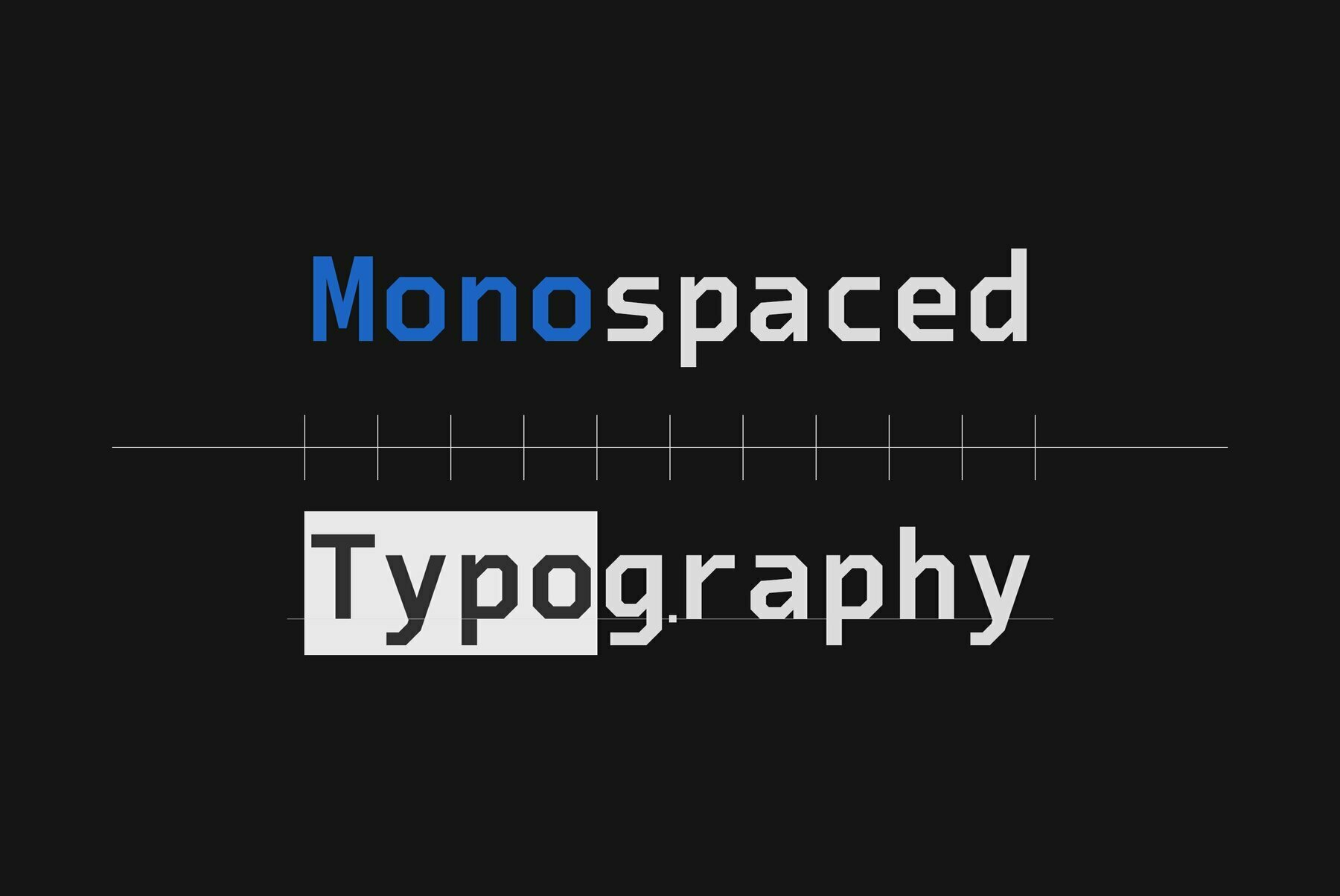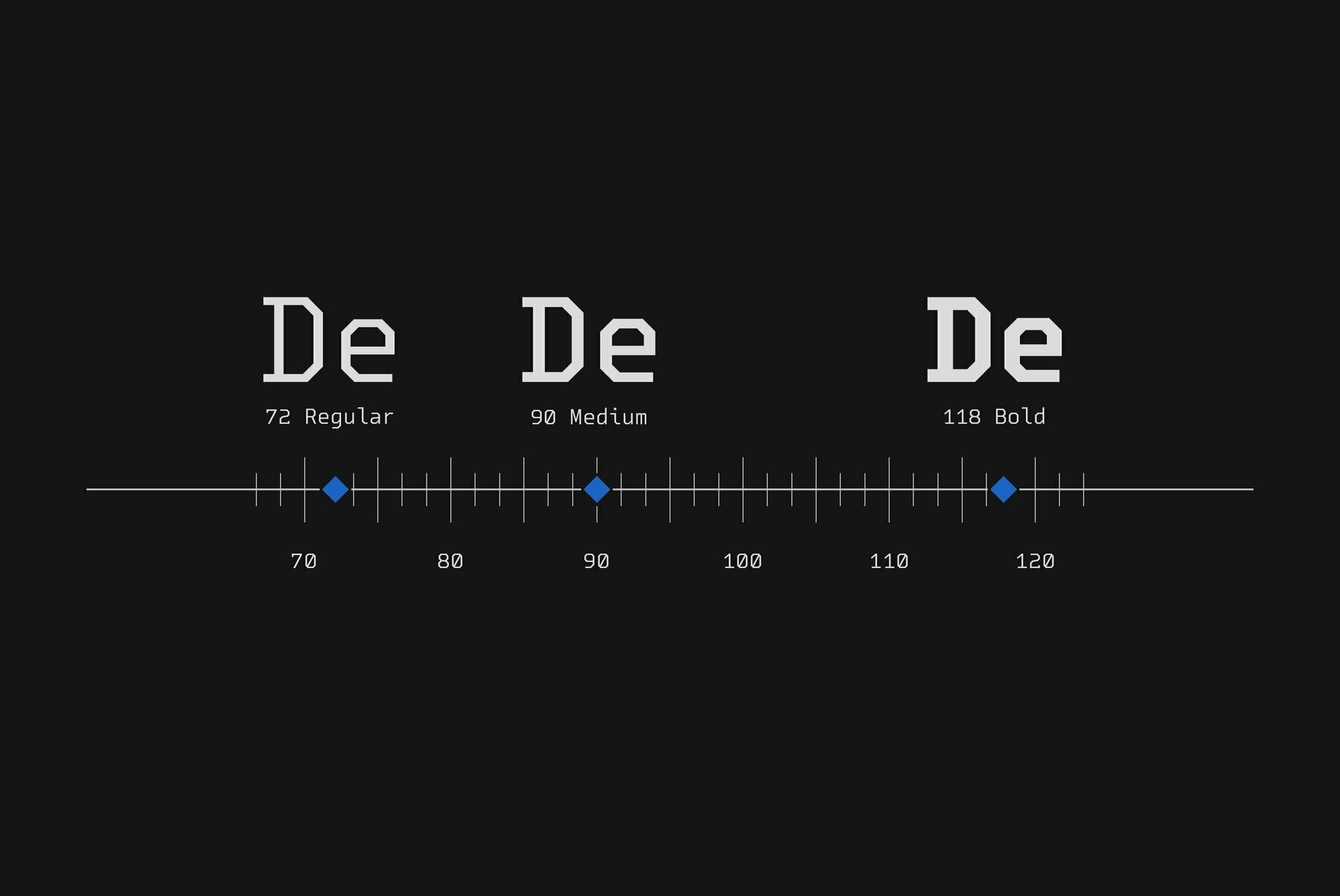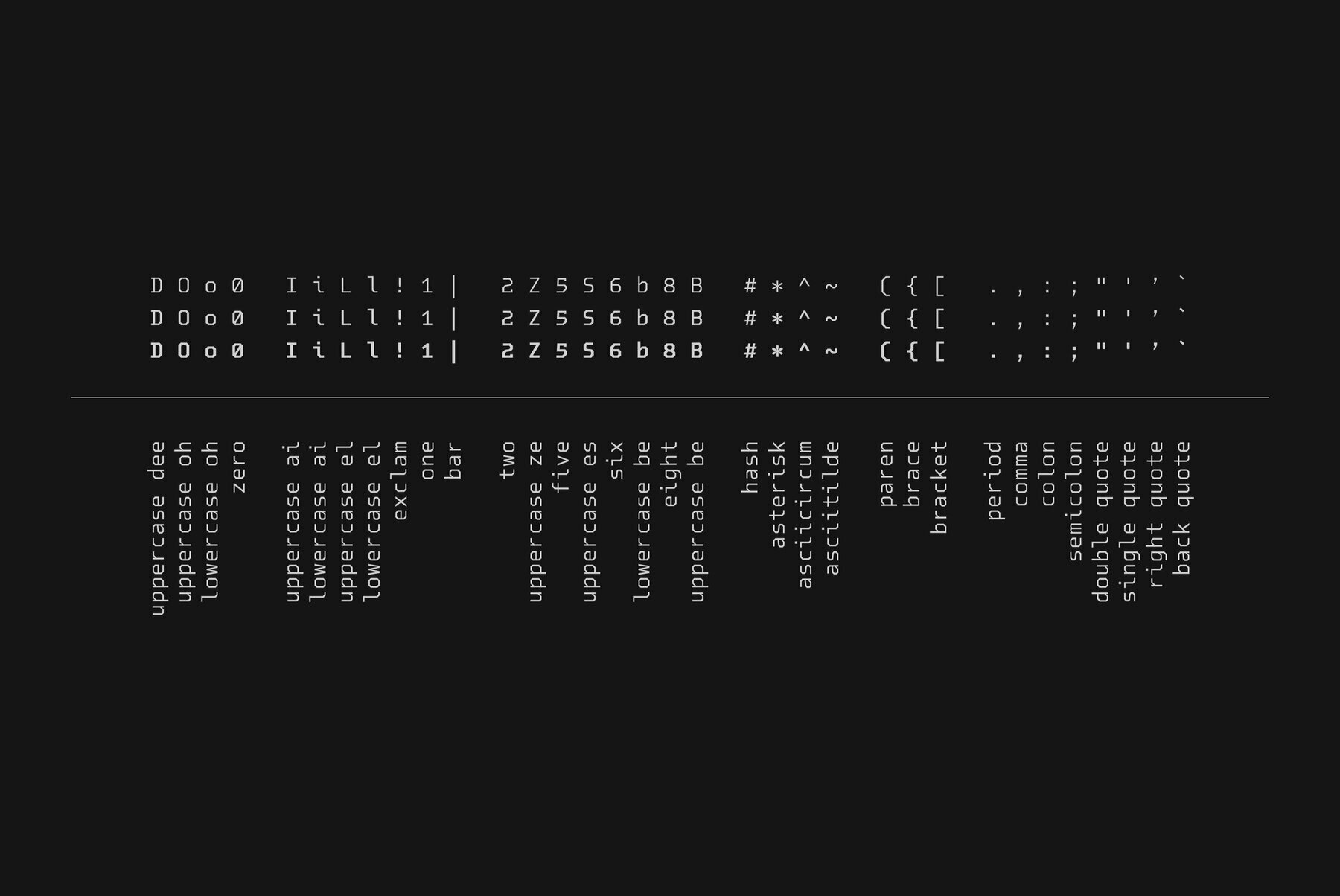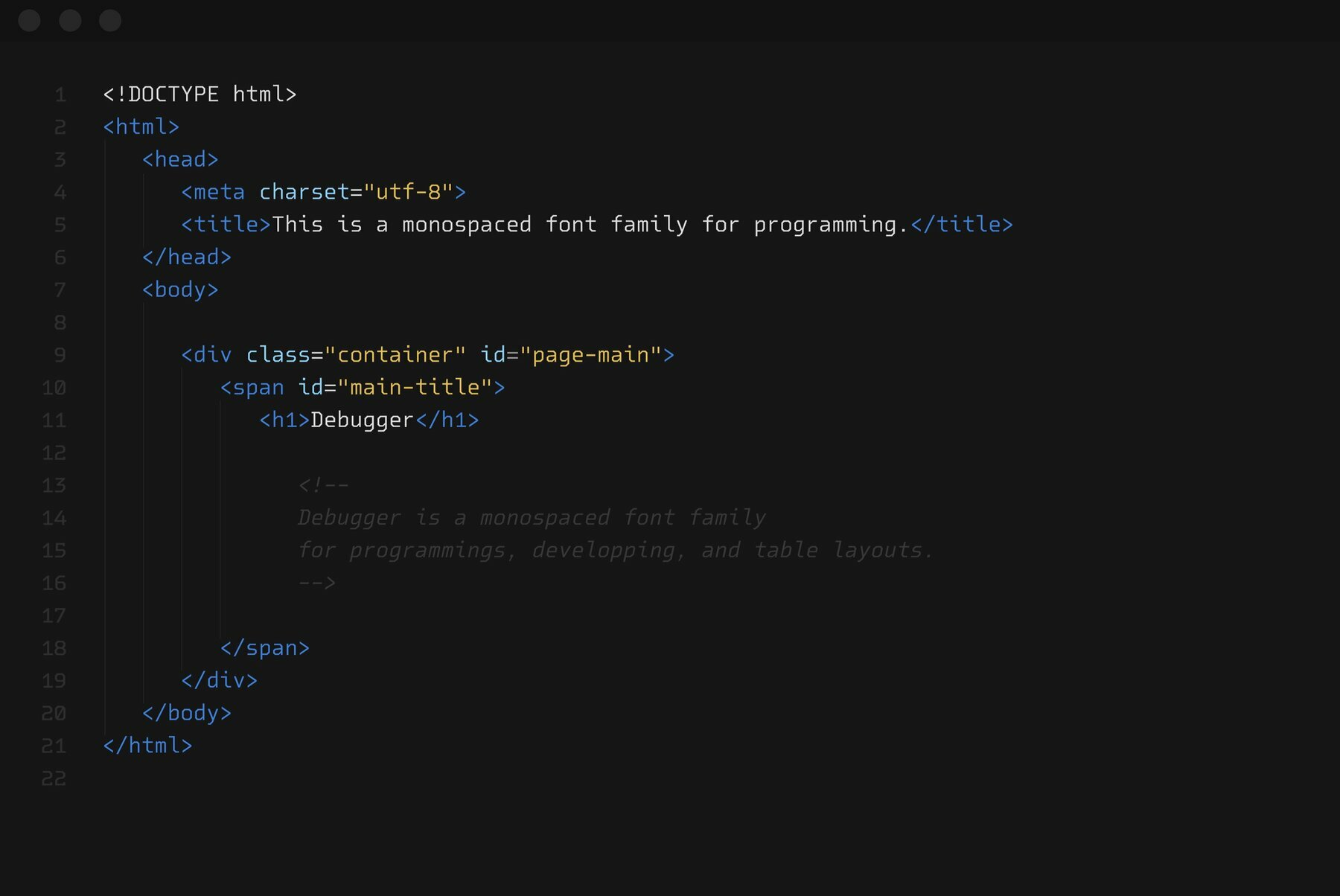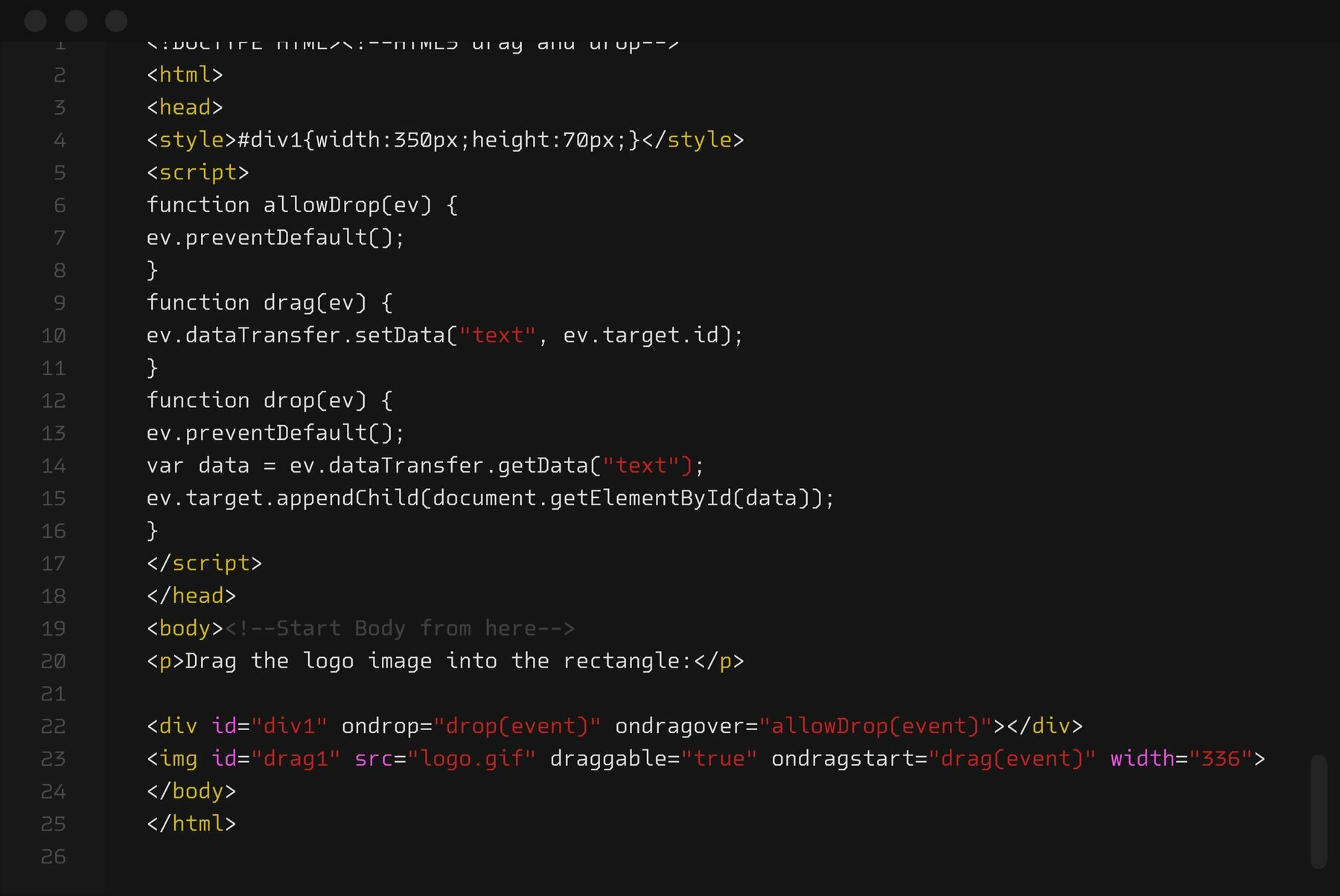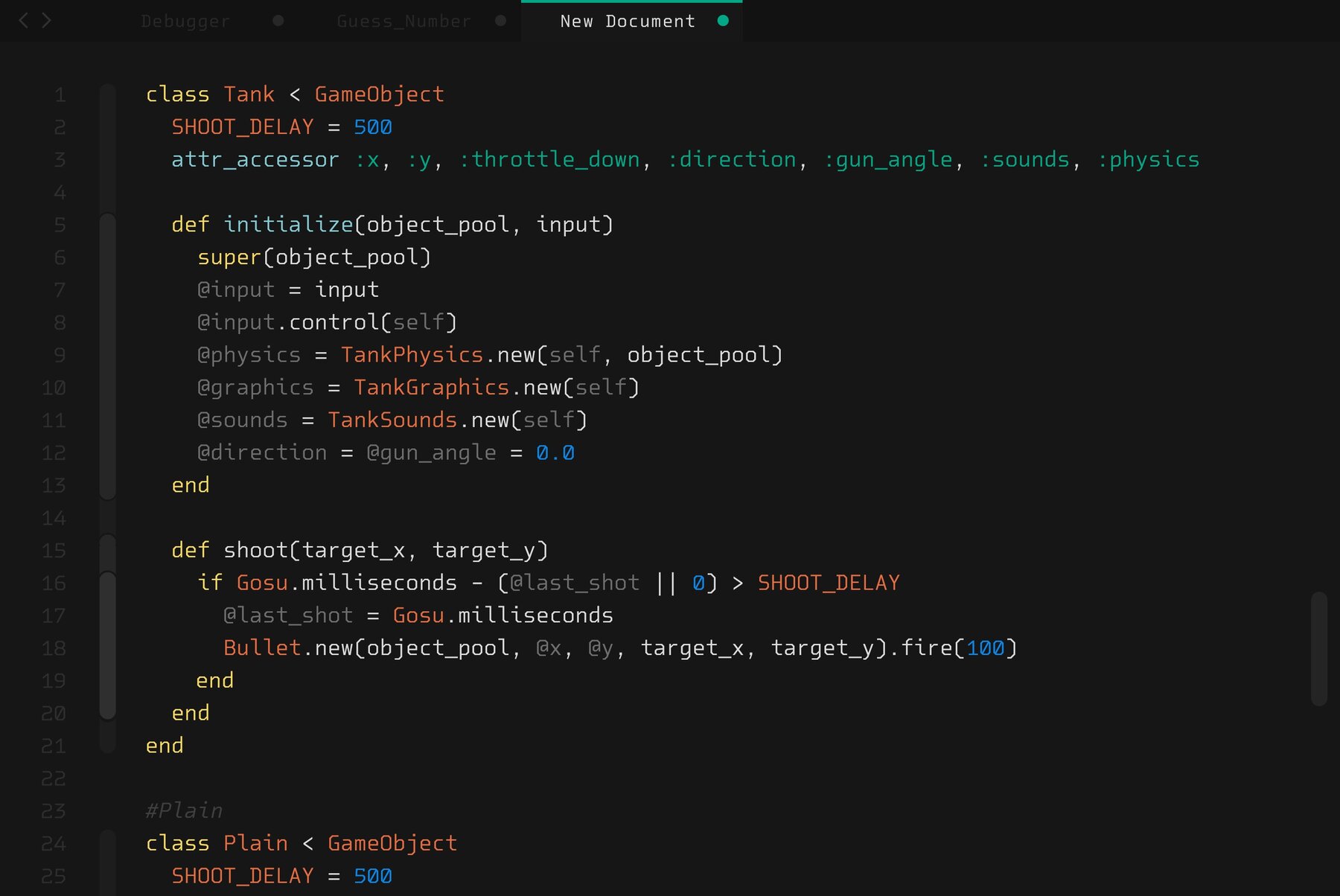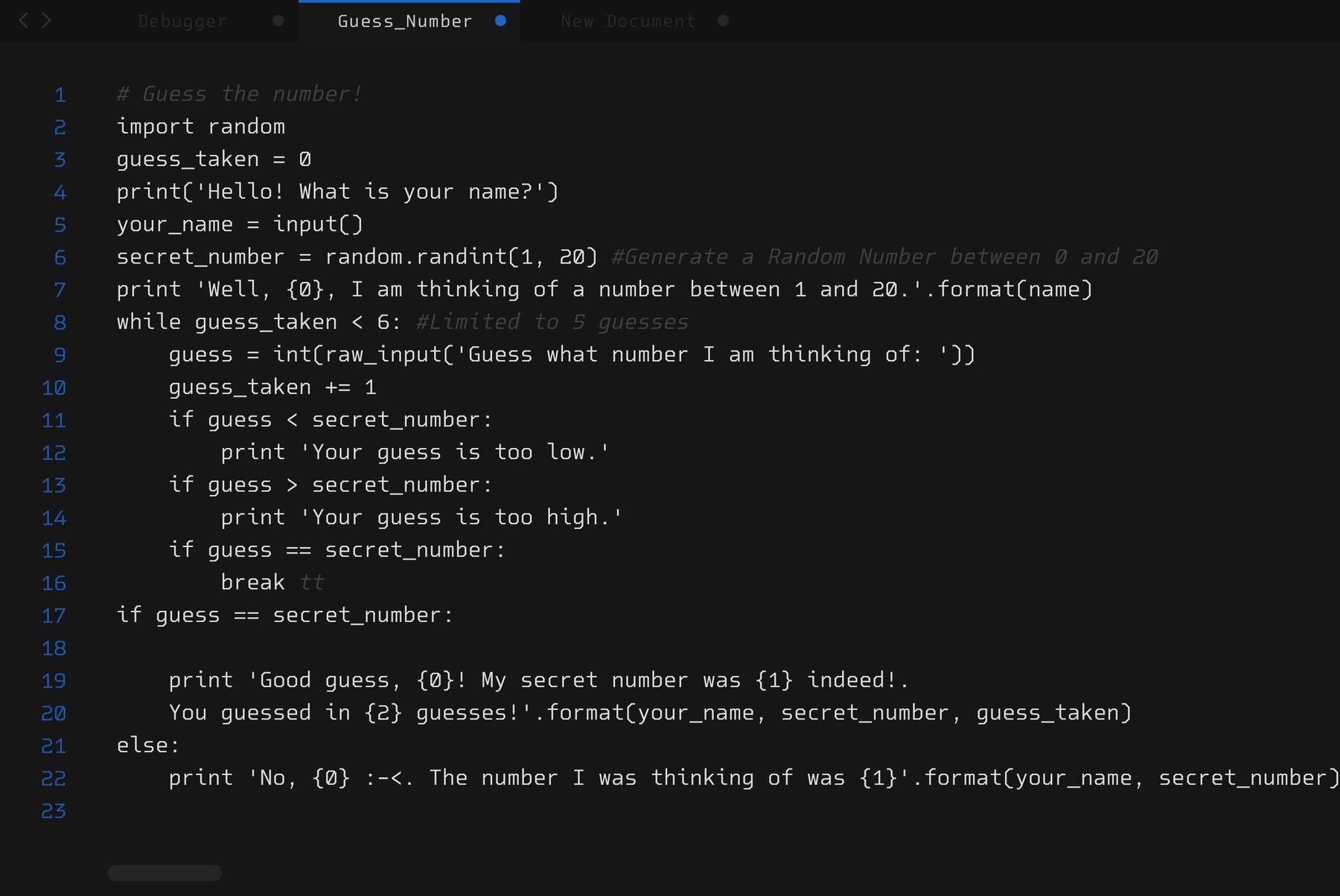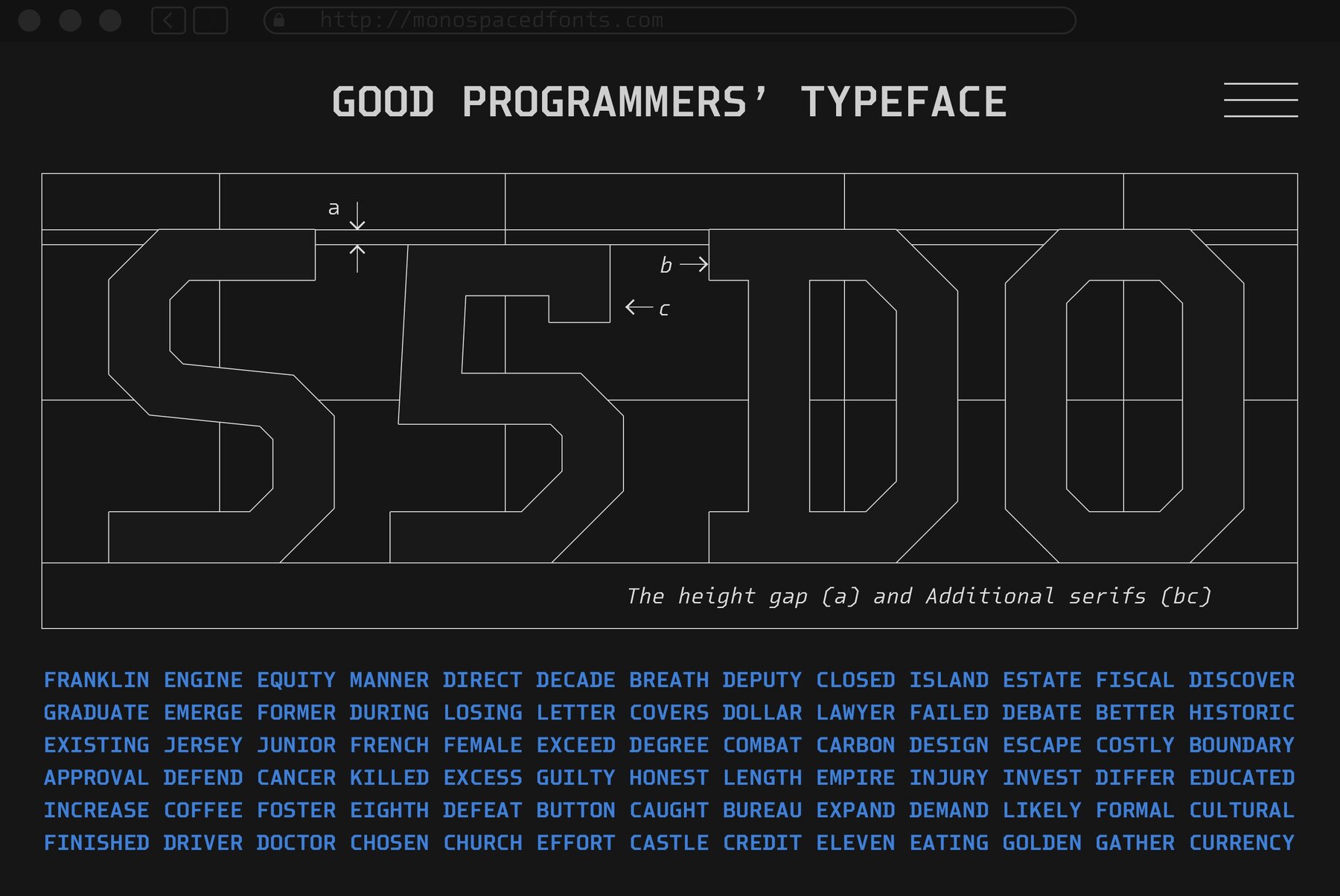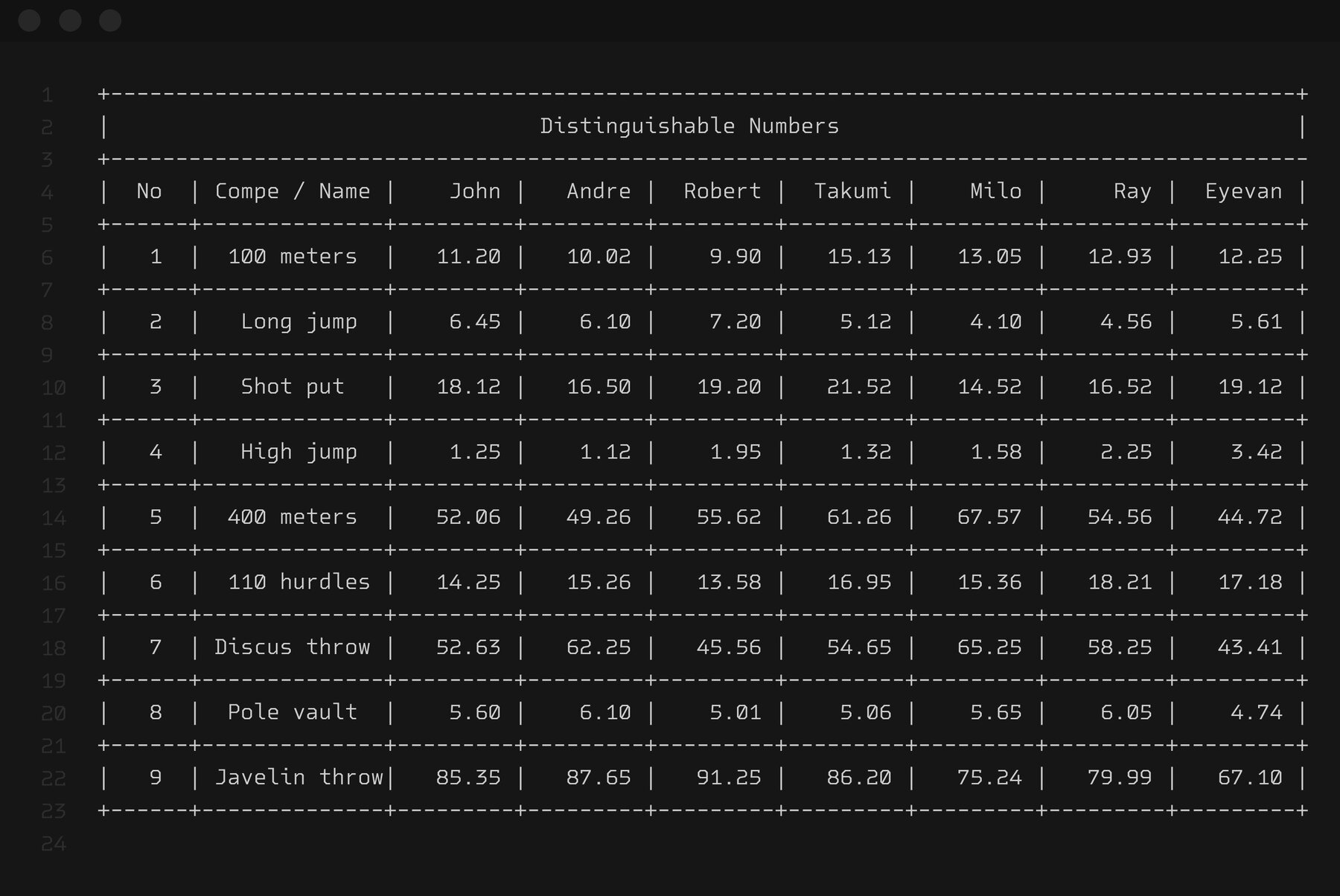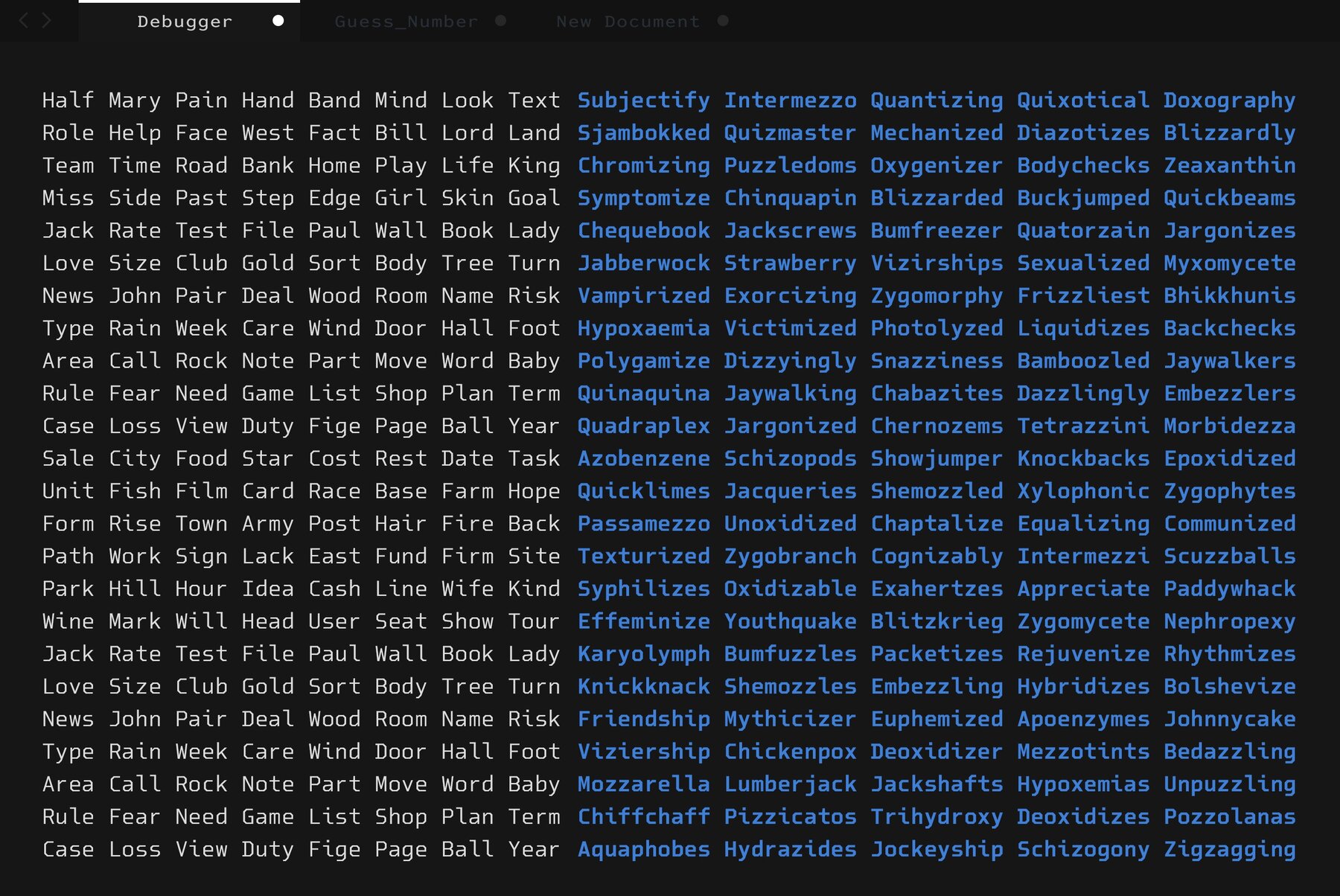
Debugger Font
Debugger is a futuristic, scientific, digital family of next-generation monospaced fonts for developing, programming, coding, and table layout.
Some desirable features in monospaced fonts are listed below.
1. Easy to distinguish
2. Easy to identify
3. Easy to read
Debugger has very distinguishing letterforms for confusable letters such as Zero&Oh, One&I, and Two&Z. A lot of ingenuity makes this family very distinguishable. Italics have somewhat large inclination angle to be distinguished from their Roman. For the same reason, Italics are slightly lighter than Romans.
Italic is not cursive Italic. It is near the slanted Roman. This is an intentional design to identify Italic letters. Cursive is not suitable for programming font.
Octagonal and diagonal letterform is good for sci-fi, digital projects. Common elements for each letterform makes harmony and a sense of unity.
Debugger supports almost all Latin languages. Try this all-new experiment.